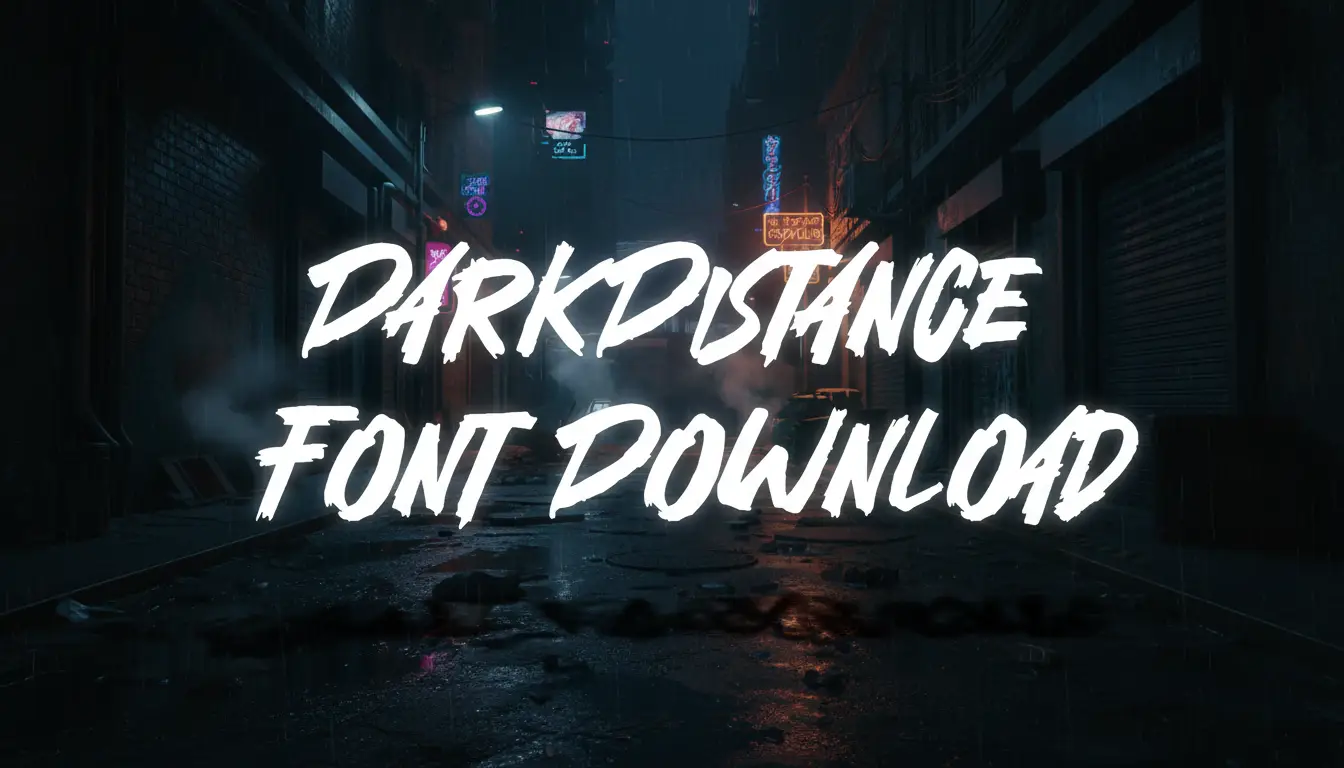
Dark Distance
Dark Distance is a horror font made by Khurasan (2023). It looks like it belongs on a horror film poster, with shapes meant to make people a little uneasy. You can download it for free and test it with your own words in the preview above.
What You Can Type With Dark Distance
You get every letter from A to Z in both cases and all the numbers from 0 to 9, which means Dark Distance can handle full sentences, dates and prices. Common punctuation such as &, !, ? and @ is included as well. It doesn't include accented letters such as é or ñ, which makes it an English-only font.
Ligatures and Smart Letters in Dark Distance
Where Dark Distance Works Best
Dark Distance is a natural fit for Halloween flyers, horror movie titles and game covers. Horror fonts hit hardest on dark backgrounds with plenty of empty space around the title.
Who designed Dark Distance font?
Does Dark Distance have ligatures?
Yes. Dark Distance has ligatures that turn on by themselves in most design apps and browsers, so you don't need to do anything special.
Does Dark Distance support accented letters?
No. Dark Distance has no accented letters such as é, ñ or ü, so it's best for English text.
What fonts pair well with Dark Distance?
Use a plain, narrow sans serif for credits or details so the title does all the scaring.